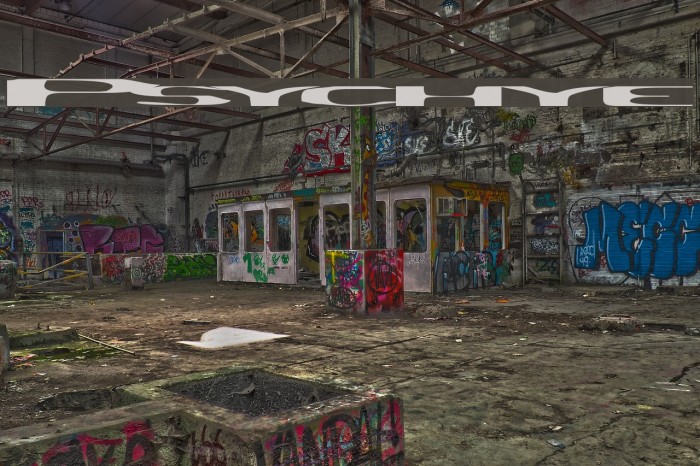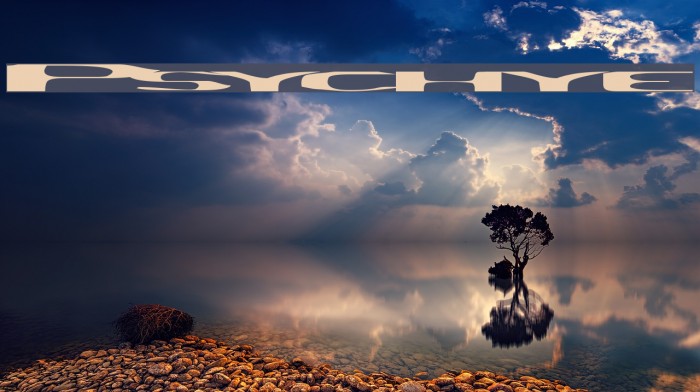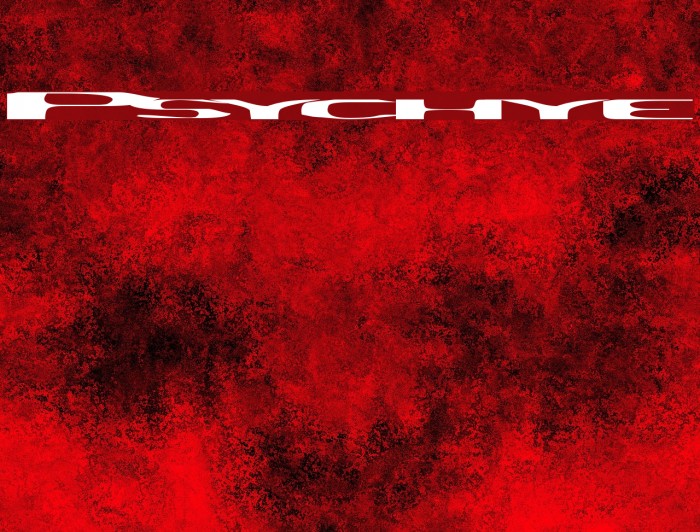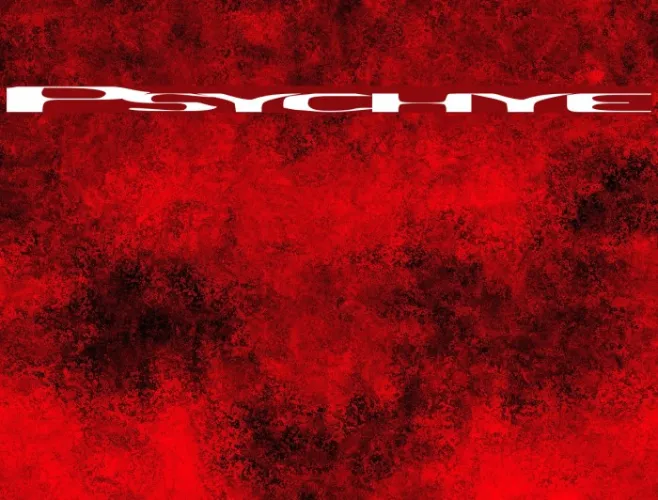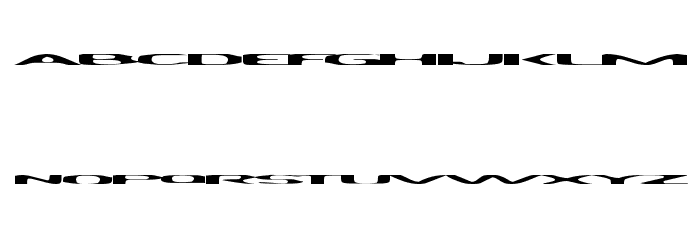
Psychye Font
Psychye Description
This font features a unique and futuristic design with elongated and angular letterforms. The characters have a sleek, aerodynamic appearance, reminiscent of speed and motion. The uppercase letters are particularly striking, with sharp edges and a sense of forward movement. The lowercase letters maintain the same aesthetic, ensuring consistency across the typeface. The numbers and special characters follow the same design principles, making the font suitable for modern and dynamic applications. Its distinct style makes it stand out, ideal for projects that require a bold and innovative look.
| Proposed Projects | Ideal for sci-fi movie posters, tech company branding, video game titles, and futuristic-themed designs. |